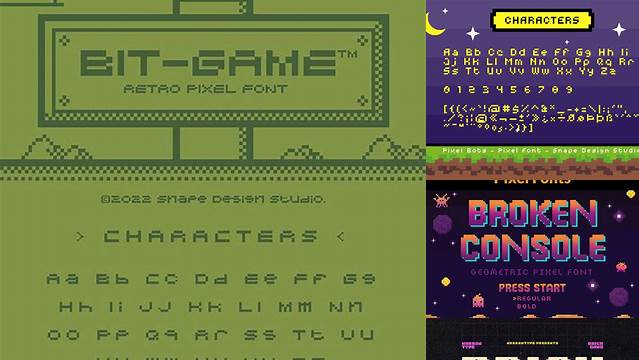
Pixel Fonts: The Ultimate Guide
Introduction to Pixel Fonts
Hey everyone! Ever get that nostalgic feeling for the old-school games? The ones with the blocky, iconic look? Well, that's all thanks to pixel fonts! These fonts are designed with a specific grid in mind, where each character is made up of individual pixels. They're the perfect choice if you're aiming for a retro vibe, especially if you're into gaming or digital art. In this guide, we'll dive into what makes pixel fonts so special, where you can find them, and how to use them effectively. Ready to level up your design game with some awesome pixel fonts? Let's get started!
Pixel fonts are more than just a font style; they're a design choice that can instantly transport you back to the golden age of gaming and computing. Unlike smooth, vector-based fonts, pixel fonts are created using a grid of individual pixels. This gives them their signature blocky appearance, reminiscent of classic video games, early computer interfaces, and digital art from the pre-internet era. The charm of pixel fonts lies in their simplicity and distinctiveness. Each character is carefully crafted to fit within a defined pixel grid, resulting in a unified and cohesive look that's instantly recognizable. They're not just fonts; they're a statement.
Pixel fonts have a rich history that mirrors the evolution of digital technology. As technology advanced, so did the sophistication of the fonts, from the blocky, pixelated designs of early computer screens to the more refined styles we see today. These fonts were born out of the limitations of early computer displays, which had low resolutions and limited pixel counts. Designers had to get creative, crafting readable and visually appealing fonts using a limited number of pixels. These constraints, however, spurred creativity, and the result was a unique aesthetic that has endured through the decades.
The popularity of pixel fonts has seen a resurgence in recent years, fueled by the nostalgia for retro gaming, the rise of indie game development, and the growing appreciation for vintage aesthetics. They're no longer confined to the realm of gaming; you can find pixel fonts used in web design, graphic design, and even marketing materials. This versatility is a testament to their enduring appeal and their ability to evoke a sense of familiarity and playfulness. With the right pixel font, you can inject a bit of retro into any project. Whether you're designing a website, creating a poster, or working on a game, pixel fonts can give your work a unique look and feel.
Finding the Perfect Pixel Fonts
So, where do you find these awesome pixel fonts? Luckily, there are tons of websites offering free and paid options. Let's explore some of the best resources out there, so you can start downloading and using these fonts in your projects. Some of the most popular websites that provide pixel fonts include 1001 Fonts, DaFont, FontSpace, and Google Fonts. Each of these websites has a wide variety of pixel fonts to choose from, so you are bound to find the perfect font for your project. Keep in mind that licensing can vary, so always check the terms of use before downloading and using a font.
When searching for pixel fonts, think about what you're trying to achieve. Do you want a font that's true to the retro aesthetic of old games, or something a bit more modern? Consider the size of your text, too. Some pixel fonts are better suited for large headings, while others work well for body text. Pixel fonts come in a range of styles. Some are designed to replicate the fonts from specific classic games, while others are more stylized and creative. Some popular examples include fonts that mimic the look of the original Super Mario Bros. and other iconic games.
1001 Fonts is a great place to start your search. They have a vast collection of pixel fonts, with different styles. The website is easy to navigate, and you can easily filter your searches to find exactly what you're looking for. DaFont is another popular option, with a massive library of fonts, including a dedicated section for pixel fonts. Keep in mind that the quality can vary, so be sure to check out the previews and read user reviews before downloading. FontSpace is another great source for free fonts. They offer a wide variety of pixel fonts, with a strong focus on quality and design. Finally, if you're looking for something simple and easy to use, Google Fonts also has a selection of pixel fonts that you can use for free.
To make the most of these resources, experiment with different fonts to see what works best for your project. Download several fonts, try them out in your design, and see how they look. Some fonts are more readable than others, so don't be afraid to test out different styles and sizes. Also, be sure to check the licensing information before using a font. Some fonts are free for personal use only, while others can be used commercially. The licensing information will be on the font download page.
Utilizing Pixel Fonts in Your Projects
Alright, you've got your pixel fonts – now what? The beauty of pixel fonts is their versatility. They work great in all sorts of projects, from websites and games to posters and logos. Let's look at some ways to use them effectively.
First off, consider the context. Pixel fonts are perfect for anything retro or game-related. They're also great for projects that want to evoke a sense of playfulness and fun. Think of using them for your website, game interfaces, posters, social media graphics, and more! However, don't feel limited by these suggestions. Get creative and let your imagination guide you. Consider the tone of your project. A pixel font can add a touch of nostalgia, retro-cool, and a playful energy. A pixel font can be used in combination with other design elements to create a cohesive and attractive look. The fonts can be used to create eye-catching headlines, interesting text effects, and engaging visuals. Also consider how well the font is readable at different sizes and the specific project it's being used for.
Readability is key! Pixel fonts can sometimes be a bit tricky to read, especially at smaller sizes. So, it's important to choose a font that's legible and easy on the eyes. Test your chosen font at the size you'll be using it, and make sure it's clear and readable. Also, consider the font's weight. Some pixel fonts come in different weights, such as regular, bold, and italic. Using a bolder weight can help make the text more readable. Test out different weights to see what works best for your project. You should also consider the color of your font and the background it is placed on. Make sure there is enough contrast so that the text can be easily read.
So, there you have it! Pixel fonts are a fun and effective way to add a retro touch to any design. By following these tips, you can create stunning designs that capture the essence of the classic gaming era. Now go out there and make some awesome art with those cool fonts!